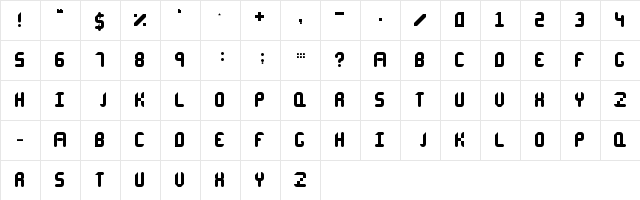
Vipansh 1.0 Regular
Design Context for Vipansh 1.0 Typeface
Vipansh 1.0 is a composed and adaptable typeface that performs quietly and consistently across a wide range of design contexts.